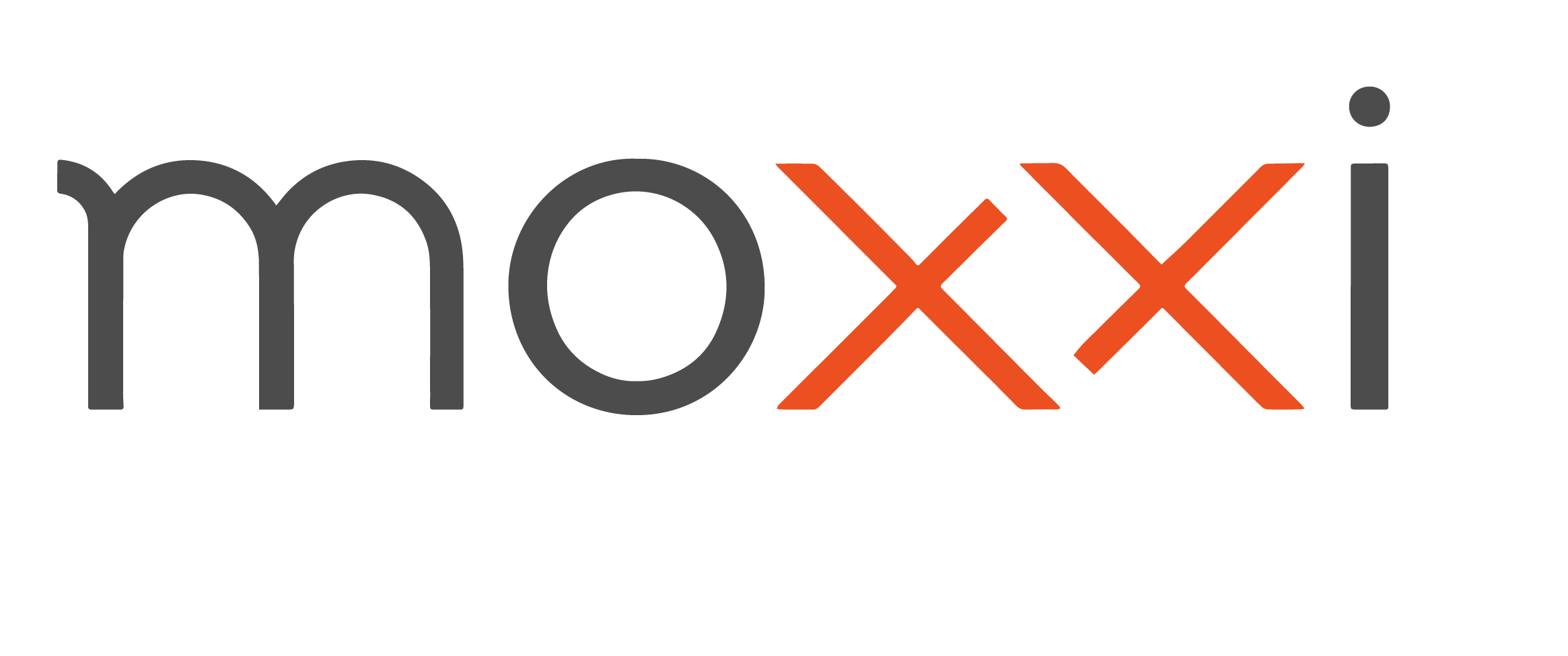
I’m trying to figure out the typeface for this company logo. The “x” is custom, but the “m”, “o” and “i” belong to a typeface. I like the rounded terminal on the “m”.
Silo is a close match, but is not it. I suspect this is a custom-drawn logo. It’s very simple and made of plain geometric forms.